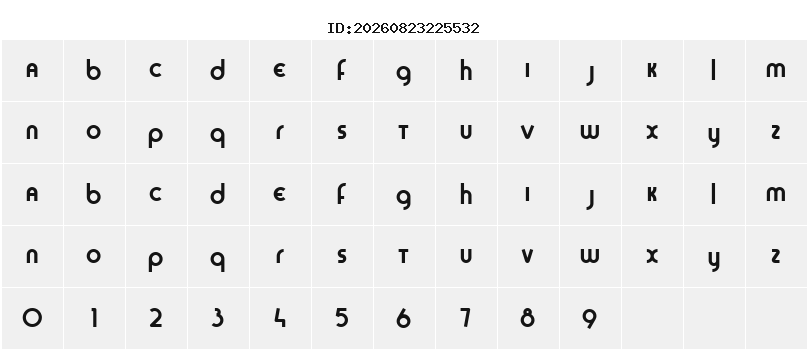
Sans Sara Preview
• Font Name: Sans Sara
• Full Font Name: Sans Sara
• Designer: S. John Ross
About Sans Sara.ttf
Sans Sara.ttf is a modern, elegant sans-serif font designed for ultimate readability and visual harmony. Perfect for branding, headlines, web design, and print materials.